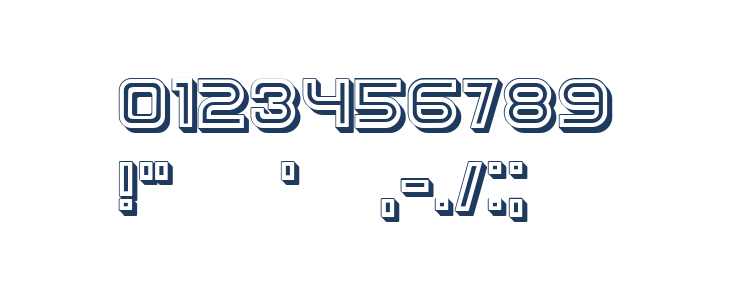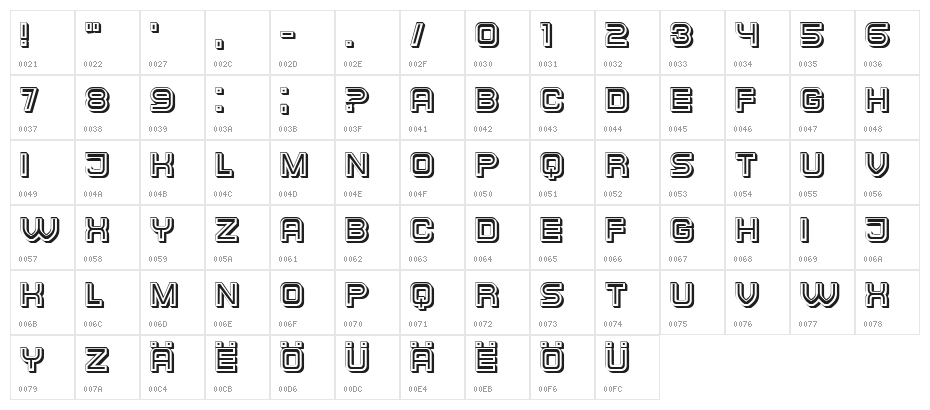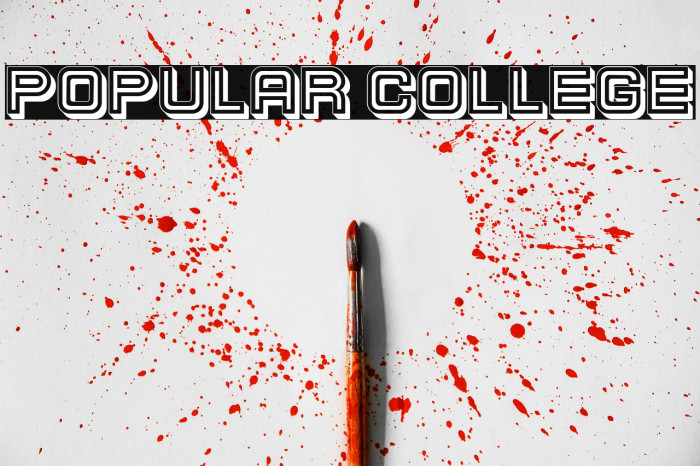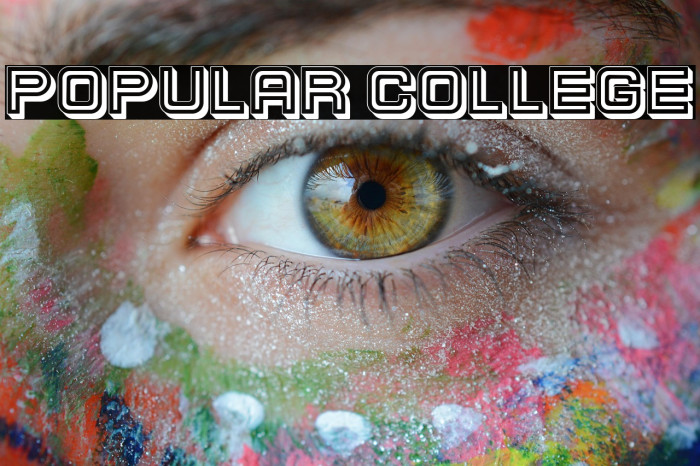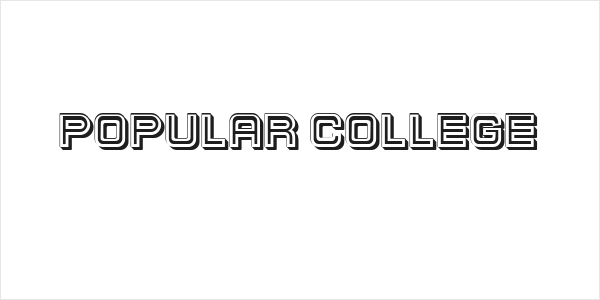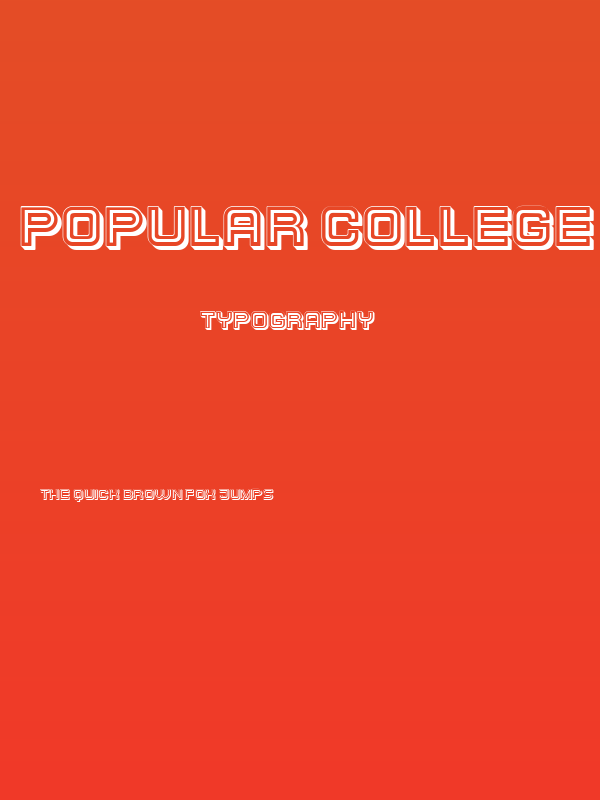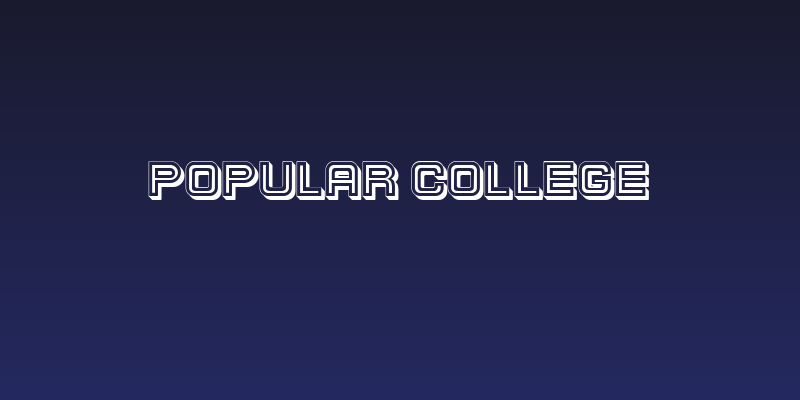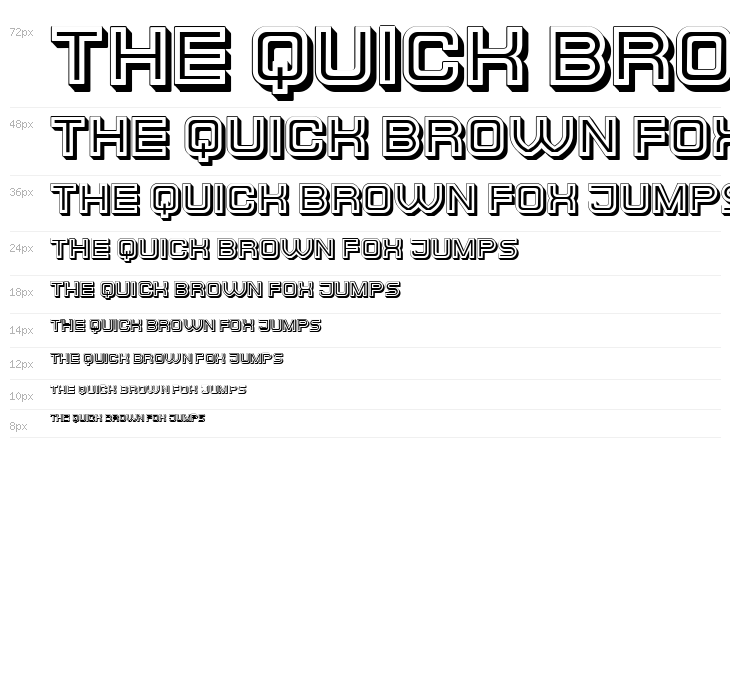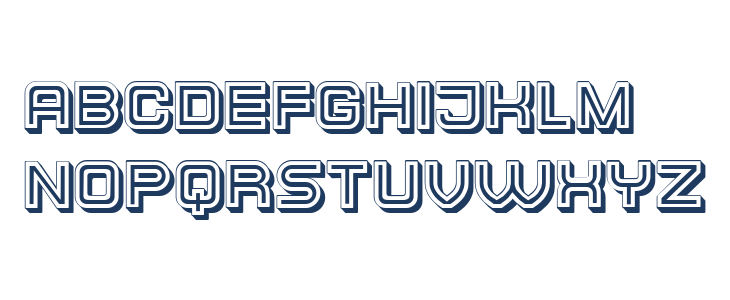
Popular College Font
Popular College Description
This font features a bold, three-dimensional design with a collegiate flair, characterized by its blocky, uppercase letters and strong outlines. The letters are constructed with a double-layered effect, giving them a shadowed appearance that adds depth and dimension. The style is reminiscent of traditional varsity or sports team lettering, making it ideal for projects that require a bold and impactful look. The numbers and special characters follow the same design principles, ensuring consistency across all elements. The font's structure is clean and geometric, with a modern twist on classic collegiate aesthetics.